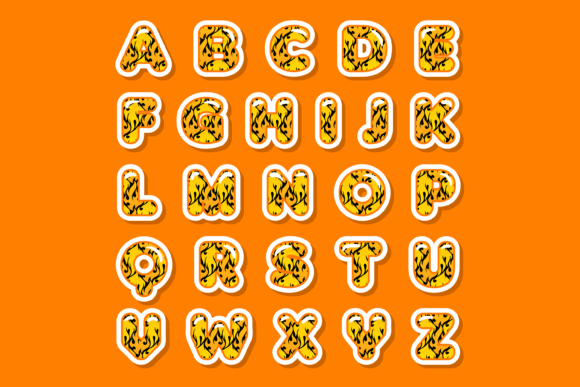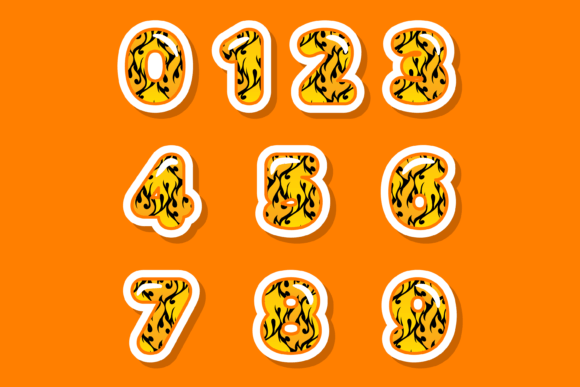
The Blazing Star of Color Fonts: A Deep Dive into Blaze Font
I’ll never forget the time I was working on a project for a client who wanted a custom design that screamed “summer vibes.” I spent hours scouring the internet for the perfect font, but nothing seemed quite right. That was until I stumbled upon Blaze Font, a vibrant color font that added a fun, fiery touch to my design. In this article, I’ll share my experience with Blaze Font, its features, and how to make the most of it in your designs.
An Honest Review of Blaze Font
What I Love About Blaze Font ✨
• 💥 **Vibrant Colors**: Blaze Font is an incredibly cool color font designed with fun fire elements. The colors are bold, bright, and perfect for adding a pop of personality to your designs.
• ✅ **Versatility**: Whether you’re a designer, crafter, or creative hobbyist, Blaze Font is an amazing choice for custom designs, DIY crafts, or any creation that requires a lovely touch.
While Blaze Font is an amazing addition to any design project, there are a few things to keep in mind:
The Story Behind Blaze Font
Blaze Font was designed with the intention of capturing the energy and playfulness of fire. The designer, inspired by the vibrant colors and dynamic movements of flames, created a font that would add a fun, lively touch to any design. With its bold, bright colors and OpenType features, Blaze Font is sure to ignite your creativity.
What type of font is Blaze Font? Blaze Font is an OpenType-SVG color font.